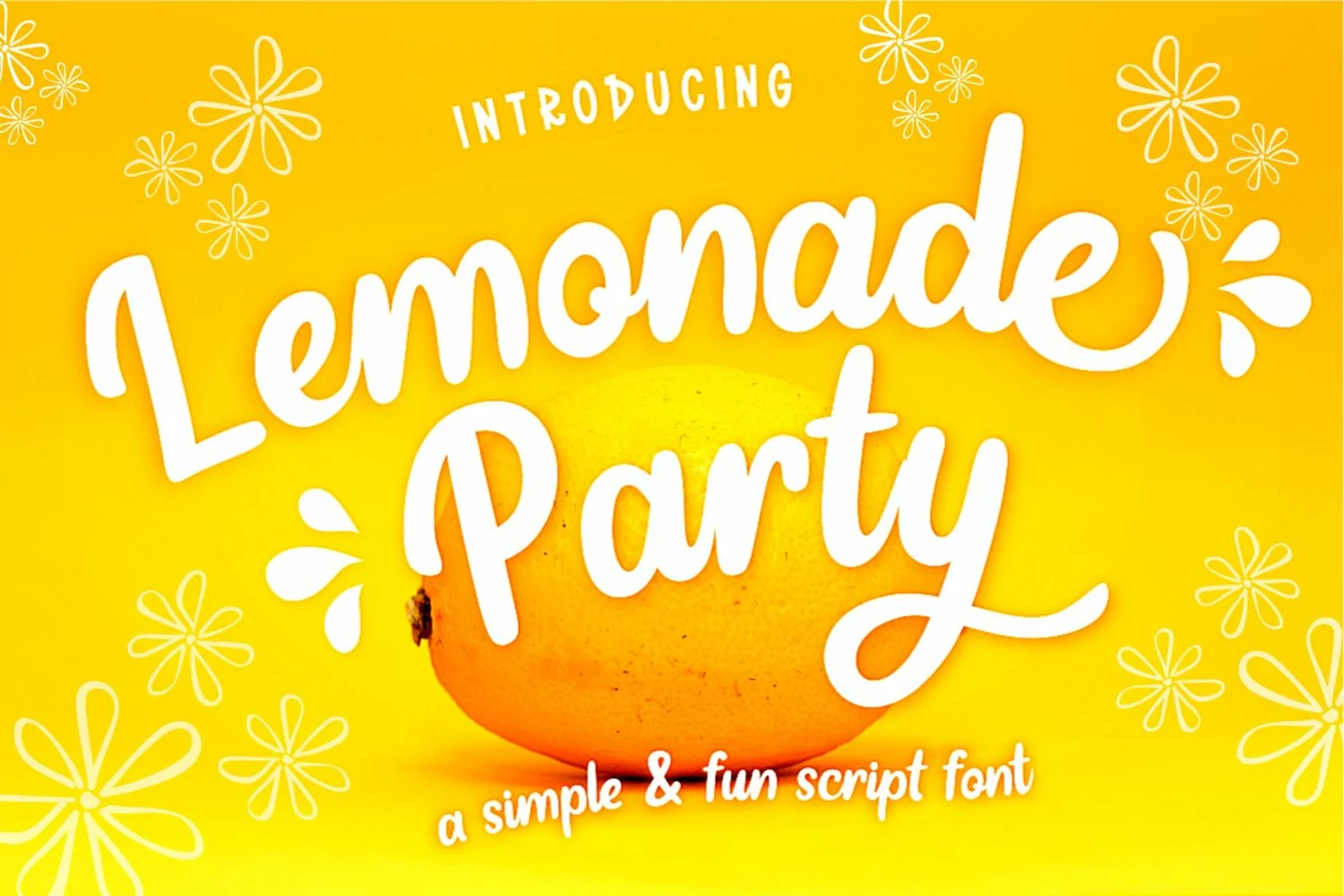
Lemonade Party
Introducing Lemonade Party - a quirky script font
Great for quotes,product packaging, tshirts, mugs, posters, comics, social media, and many more!
Multilingual support